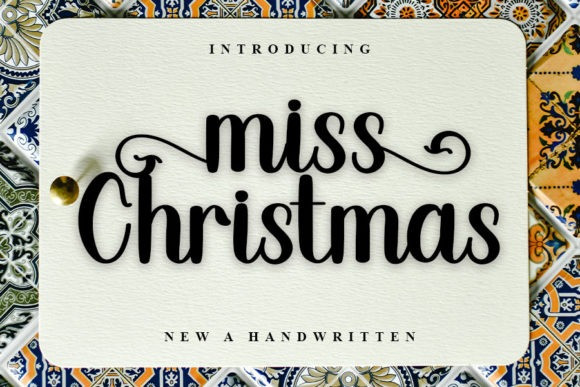
Miss Christmas Font
Miss Christmas Script Font is a stylish handwritten font with a contemporary atmosphere and impeccable form, inspired by a timeless classic calligraphy. This font is PUA encoded which means you can access all of the glyphs and swashes with ease!